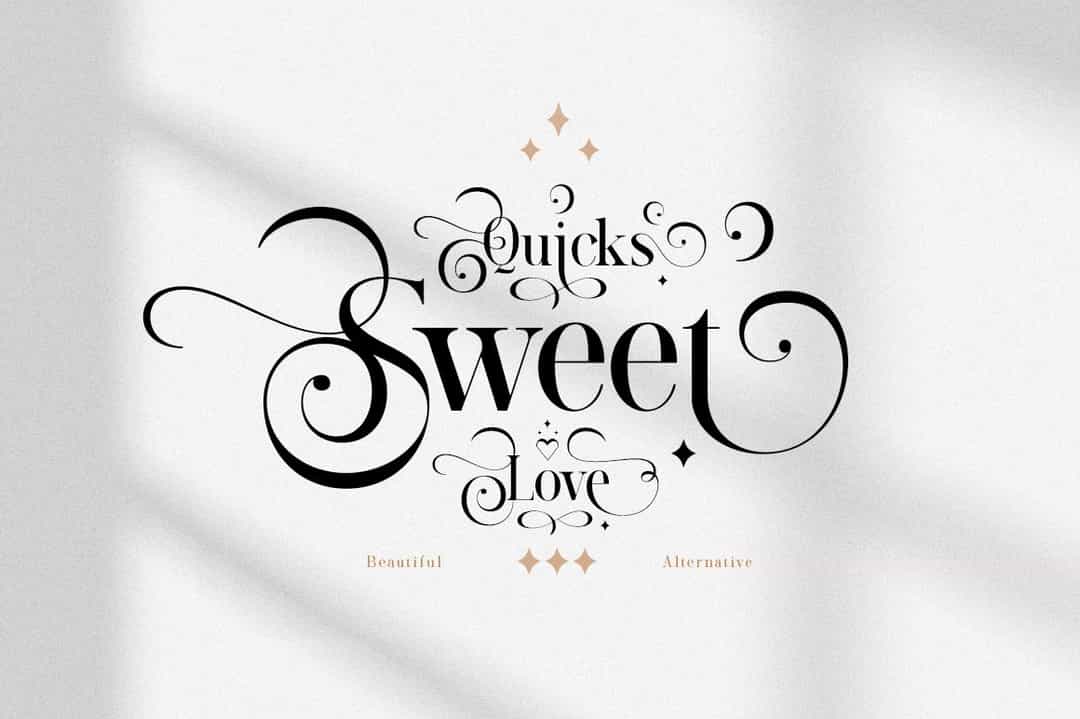
Quicks Sweet Love is a stylish serif typeface with an elegant style, perfect for your favorite projects. Behold its beautiful lines and timeless aesthetic and use this beautiful font to craft amazing designs!